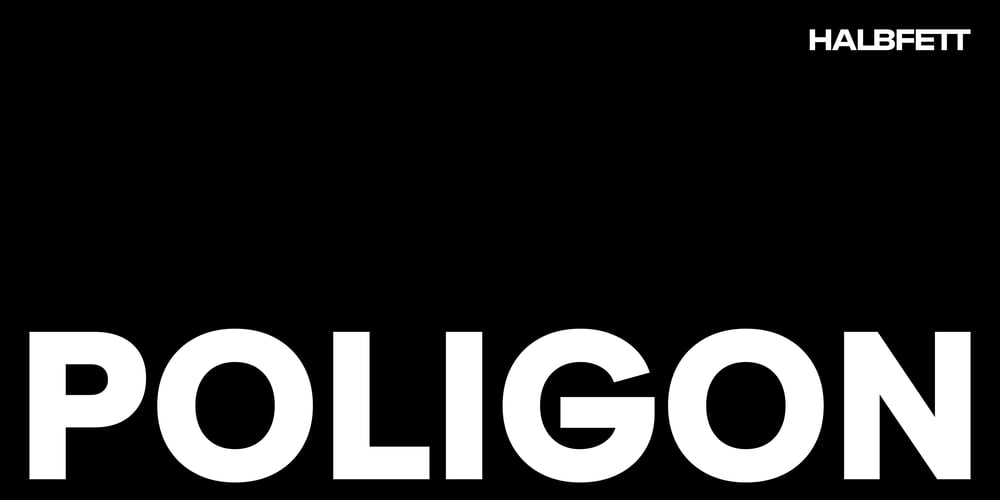
Poligon Font Family was designed by Deni Anggara and published by Halbfett. Poligon contains 14 styles and family package options. Poligon is a large family of geometric sans serif fonts. It is inspired by classic typefaces from the geometric-sans genre, like Futura and Avant Garde Gothic, whose shapes were constructed from circles and straight lines. Every character has been crafted to give it a distinct and individual feel. The family is an excellent choice for both corporate design and editorial design projects because of its range of weights, as well as its legibility in text. The typeface family ships in two different formats. Depending on your preference, you can install the typeface as two Variable Fonts or use the family’s eight static OpenType font files instead. Those weights run from Thin to Black. While the static-format fonts offer a good intermediary-step selection, users who install the Variable Fonts have vastly greater control over the stroke width in their upright and italic texts. The weight axes in Poligon’s Variable Fonts allow users to differentiate between almost 1,000 possible font weights. That enables you to fine-tune your text’s exact appearance on-screen or in print. But even the static fonts satisfy the need for flexibility, creating harmonious variations of texture and emphasis. Despite their rigid geometry, the fonts have a playful air to them. That playfulness and uniqueness can be dialed up by applying stylistic alternates via the fonts’ four Stylistic Sets. The first of these replaces “G”, “M”, and “&” with alternate, more outgoing shapes. Stylistic Set 2 has an alternate “ß”; Stylistic Set 3 has a “Q” with a longer tail and another “G”. Stylistic Set 3 has alternates for “A”, “K“, “Q”, “R”, “S”, “Y”, and “Z”.